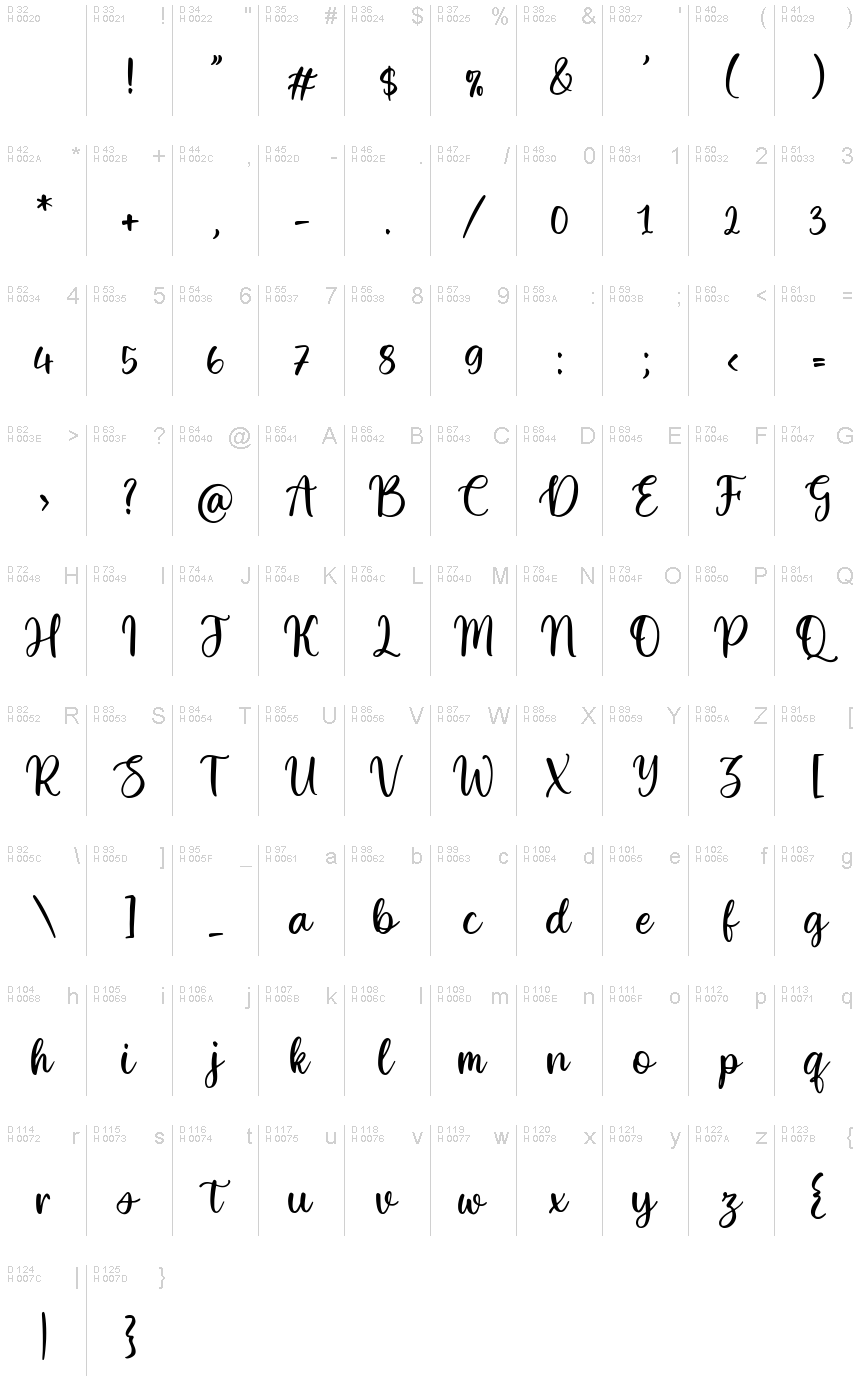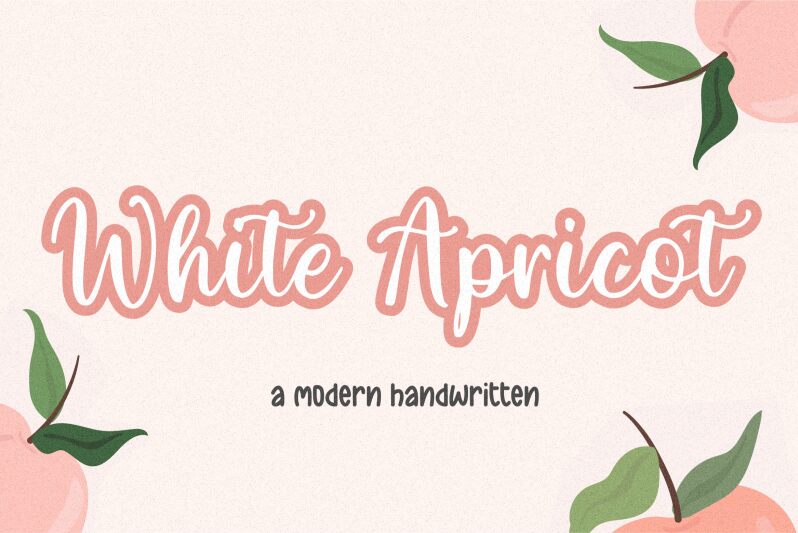
White Apricot
White Apricot font is a beautifully handwritten typeface designed by Balpirick Studio. Elegant and cursive, the letters have moderate contrast, smooth curves, and refined angularity that all contribute to a delicate look. Its finished product is feminine, meticulous in details, and charming in presence.
Consider using this free font for branding projects that include logos, titles, slogans… The elegant flowing style with its playful mood makes it work for wedding cards/invitations or other invitation types as well. Write social media content with one of the prettiest available artistic options.